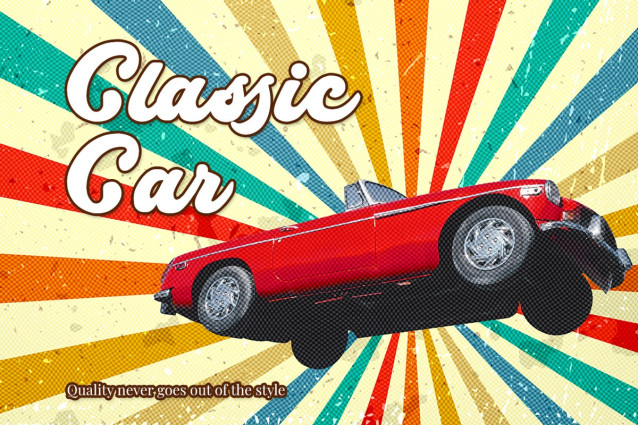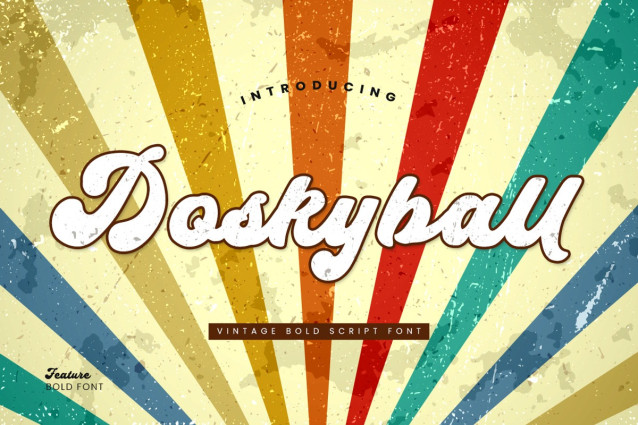
Doskyball Retro Font
Doskyball Retro Font – Inspired by ’70s script letters. The Doskyball comes with open-type features such as style alternatives, & fasteners. Doskyball Typeface best use for headings, Logotypes, quotes, clothing designs, invitations, pamphlets, posters, greeting cards, product packaging, book covers, printed quotes, album covers, films, etc.